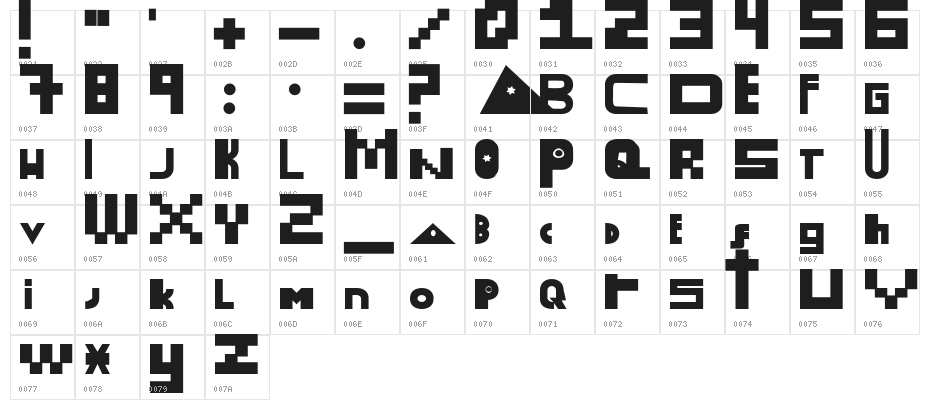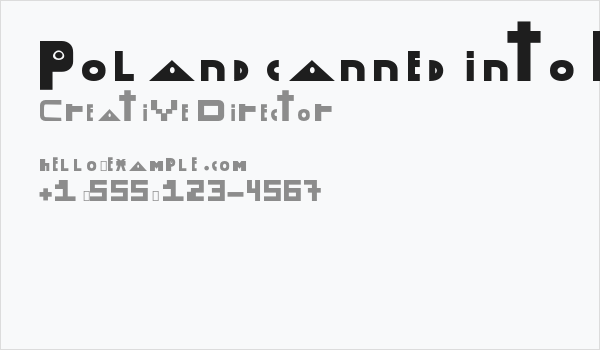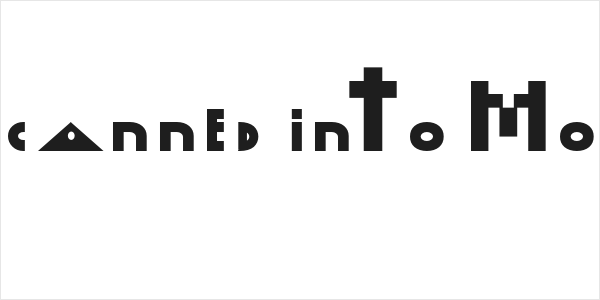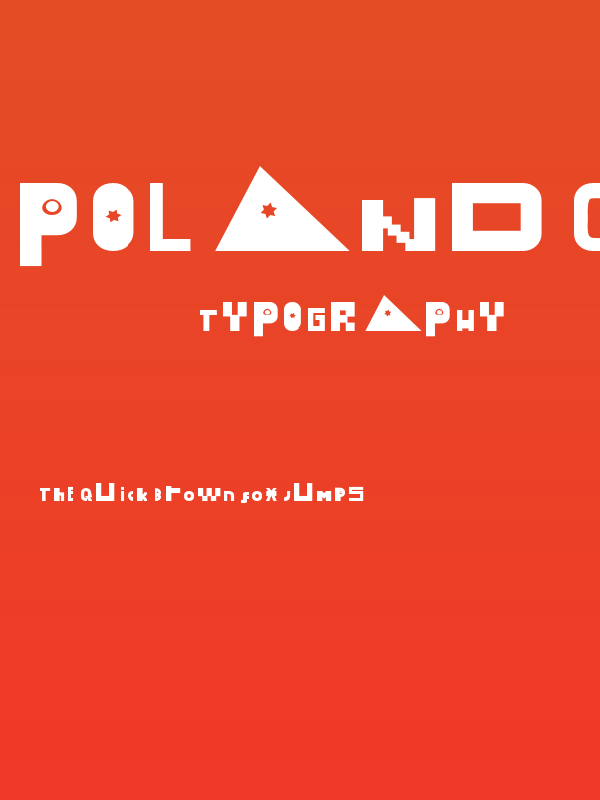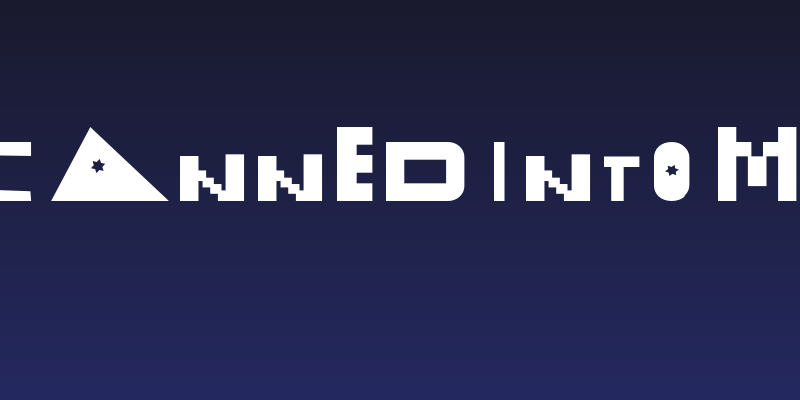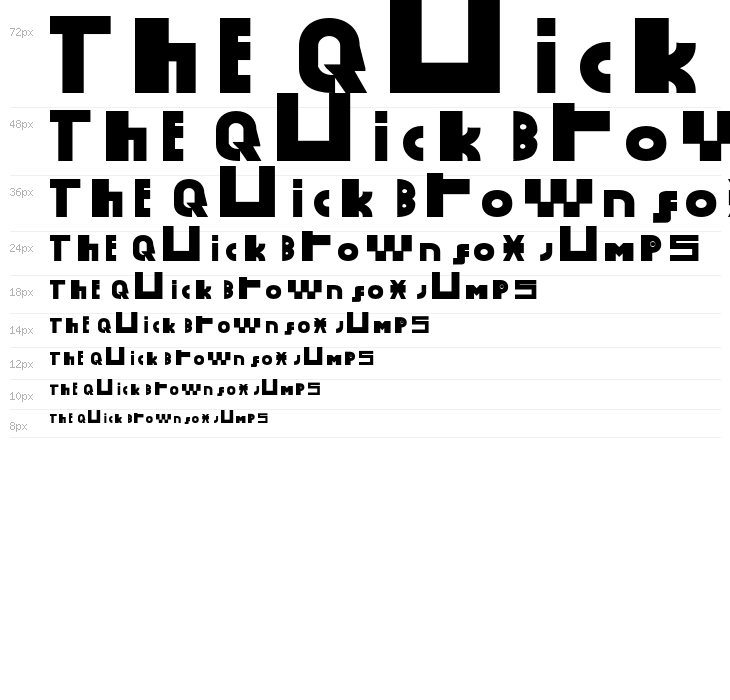
Poland canned into Money bag Font
Poland canned into Money bag Description
This font features a bold and geometric design with a distinct blocky appearance. Each character is crafted with sharp angles and straight lines, giving it a futuristic and digital feel. The uppercase and lowercase letters maintain a consistent style, with some characters incorporating unique elements like stars or additional geometric shapes. The numbers follow the same bold and angular design, ensuring uniformity across the character set. Special characters are included, adding versatility for various design needs. The overall style is striking and modern, making it suitable for projects that require a strong visual impact.
| Proposed Projects | Ideal for video game titles, tech branding, posters, and digital media. |